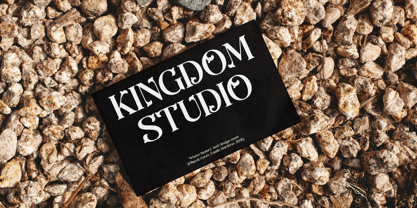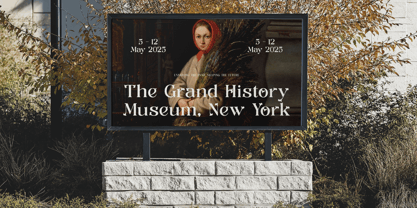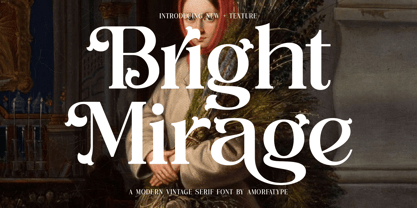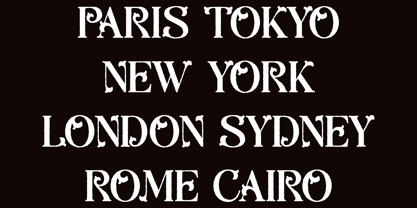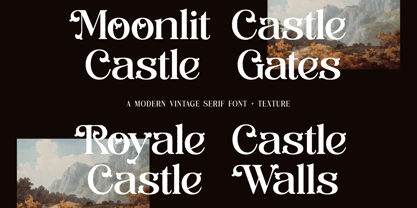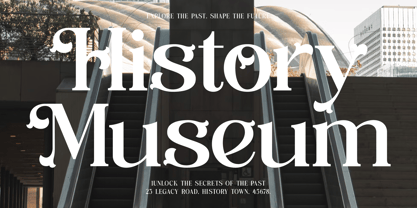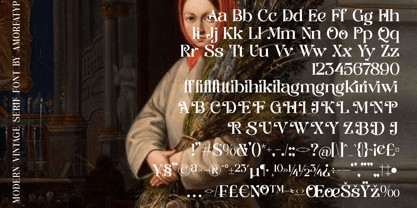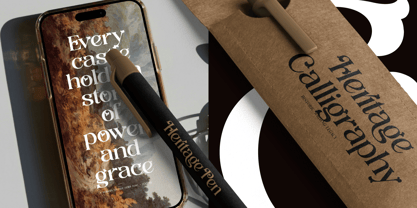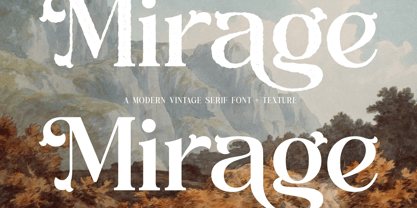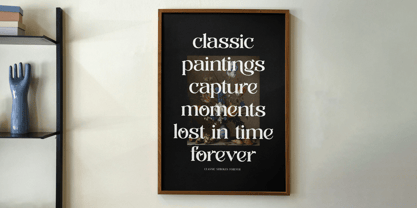
Bright Mirage
by Amorfa Type
The Bright Mirage Font Family was designed by Shiddiq Roihan and published by Amorfa Type. Bright Mirage contains 4 styles and family package options.
Bright Mirage Modern Vintage Serif Font by Amorfatype
Bright Mirage is a modern vintage serif font that beautifully merges classic elegance with contemporary refinement. With its structured yet graceful letterforms, this font offers a perfect balance of smooth curves and subtle details, creating a timeless and sophisticated aesthetic. The harmonious blend of bold presence and delicate styling makes Bright Mirage an ideal choice for projects that demand both vintage charm and modern versatility.
Designed for a wide range of creative applications, Bright Mirage excels in luxury branding, editorial layouts, premium packaging, and digital designs. Its refined yet distinctive character enhances both striking headlines and detailed body text, ensuring excellent readability while adding a touch of sophistication. Every glyph is meticulously crafted to adapt effortlessly to various design needs, making Bright Mirage a stylish and reliable choice for any creative endeavor.